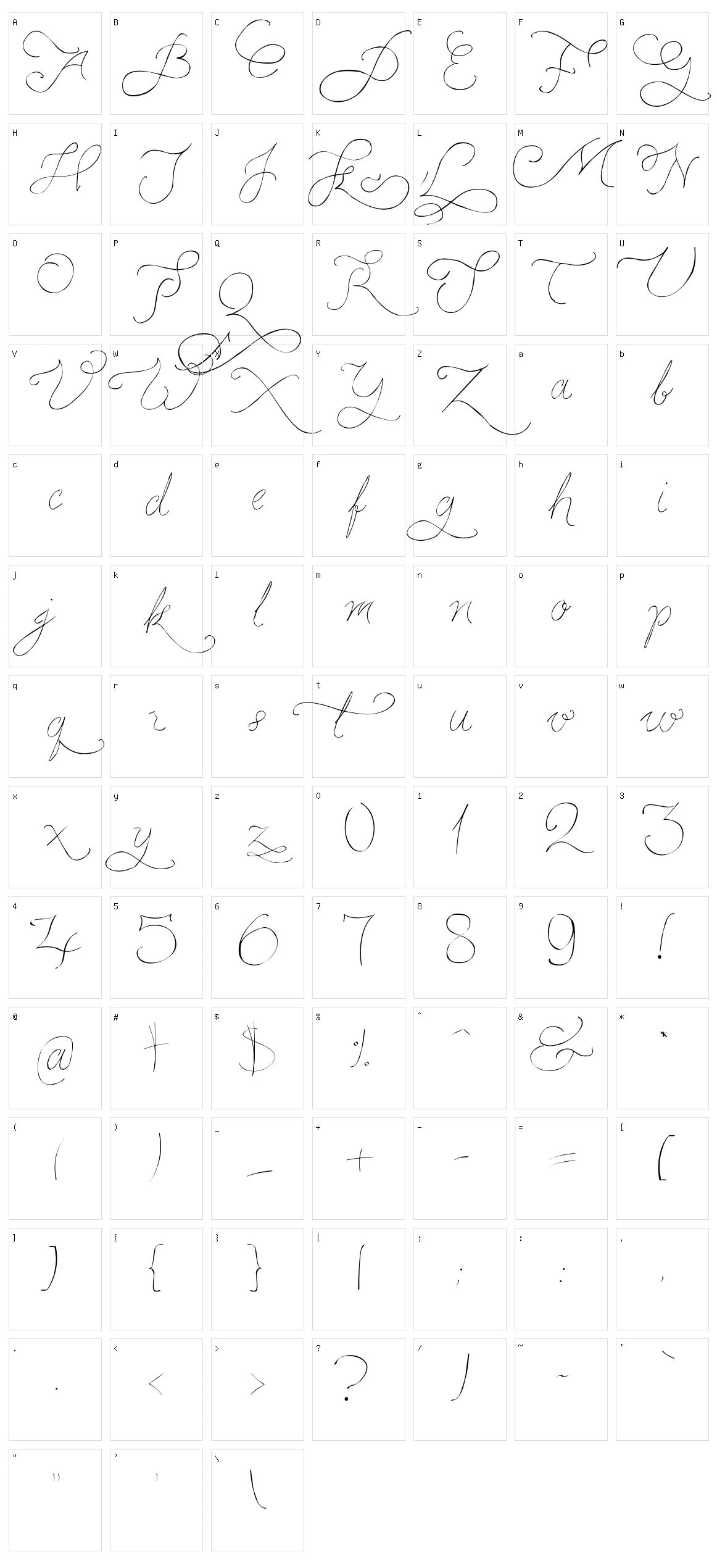
The free font Persifal is carefully designed by Type Sailor, showcasing a thoughtful balance of creativity and usability and falls under the Script font style. When you download the ZIP file, it contains only 1350.85 KB of font files, making it lightweight and quick to download. Please review the license details below to understand permitted usage and distribution rights. If license information is not available, we recommend using this font for personal projects only or contacting the author directly for commercial usage permissions.
This font was designed entirely by computer.